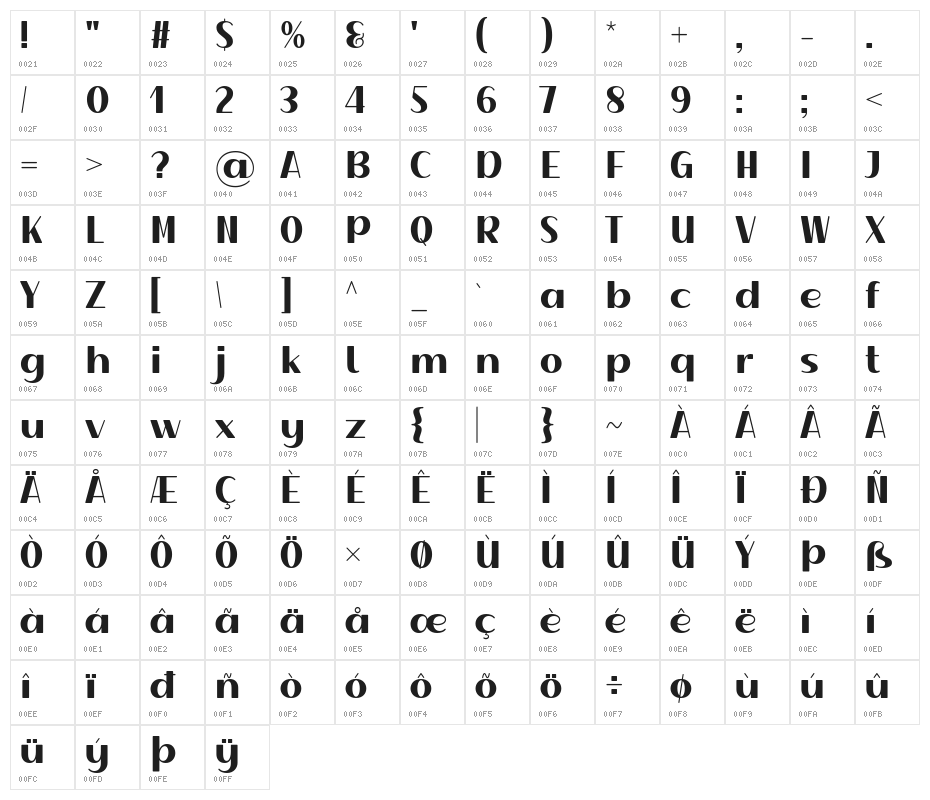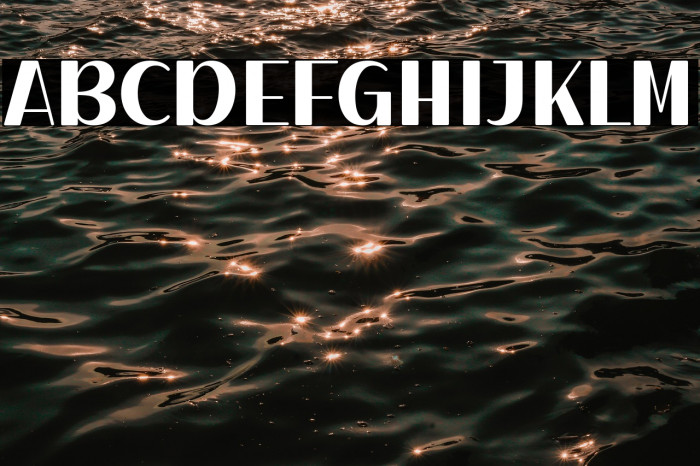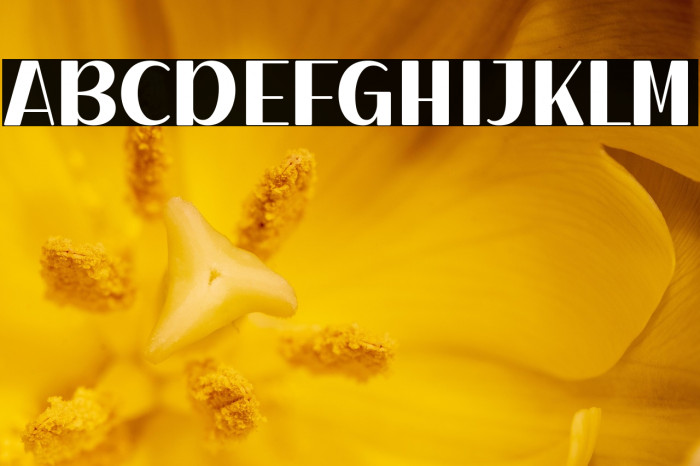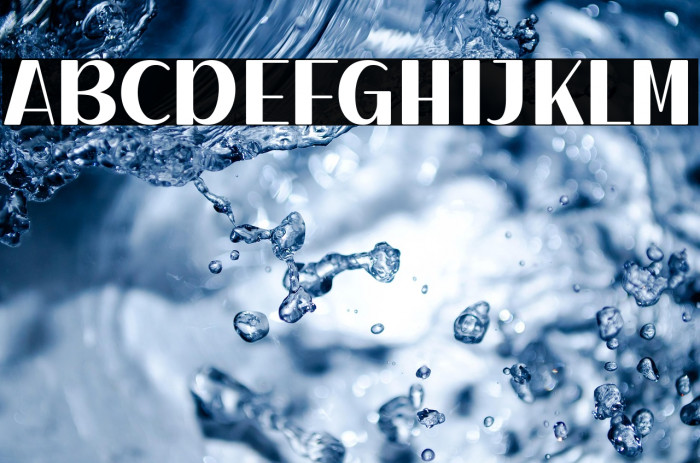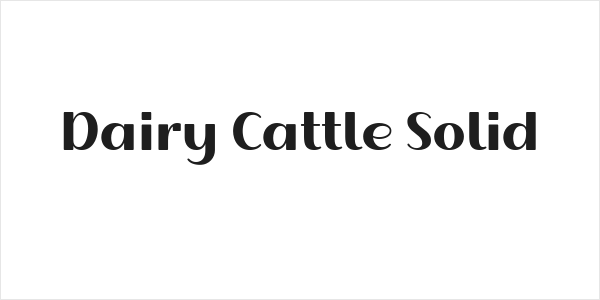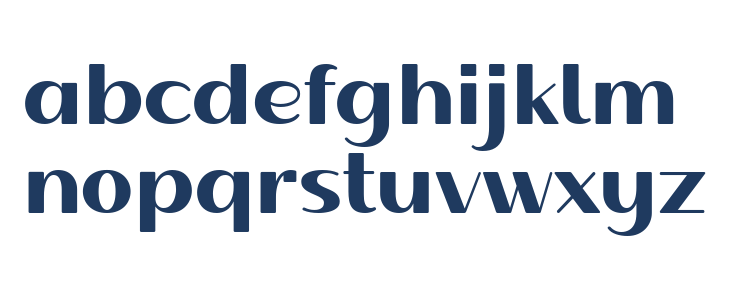
Dairy Cattle Solid Font
Dairy Cattle Solid Description
This font features a bold and dynamic style with a strong presence. The uppercase letters are characterized by their thick strokes and slightly condensed forms, giving them a powerful and assertive look. The lowercase letters maintain a consistent weight, with rounded edges that add a touch of softness to the overall design. The numerals are well-balanced, matching the boldness of the alphabet characters. Special characters are distinct and integrate seamlessly with the rest of the font. The overall appearance is modern and versatile, suitable for a variety of design applications.